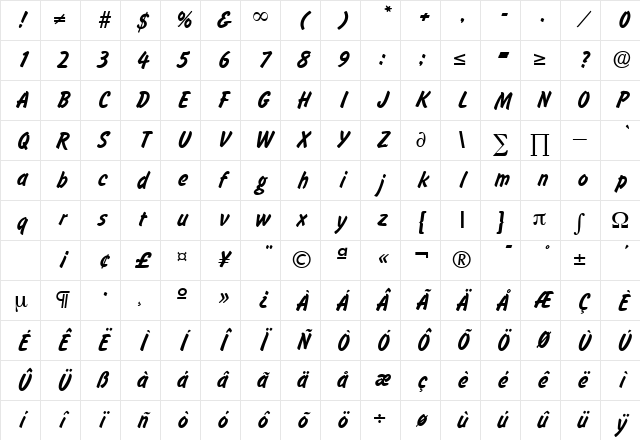
Complete Slager Medium glyph index. Displaying only characters natively supported by Slager Medium font.
Slager is a composed and adaptable typeface that performs quietly and consistently across a wide range of design contexts.